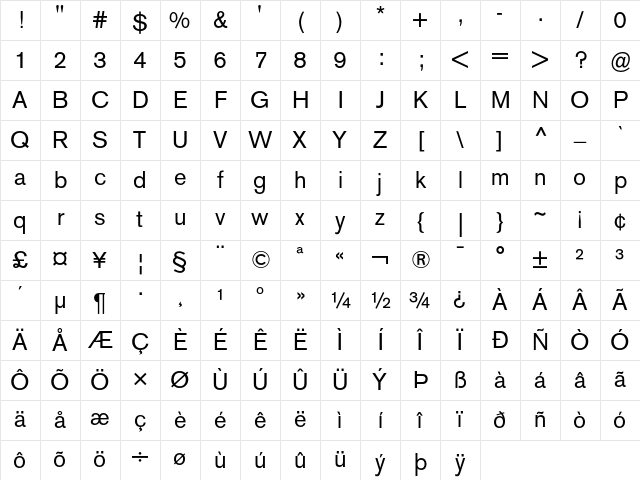
VolvoSans Regular
Complete VolvoSans Regular glyph index. Displaying only characters natively supported by VolvoSans Regular font.
Design Context for VolvoSans
VolvoSans is a composed and adaptable typeface that performs quietly and consistently across a wide range of design contexts.